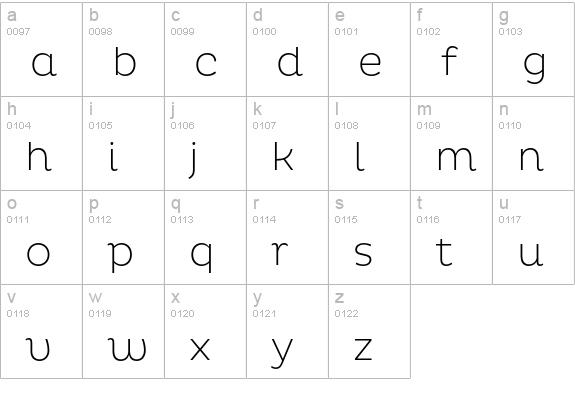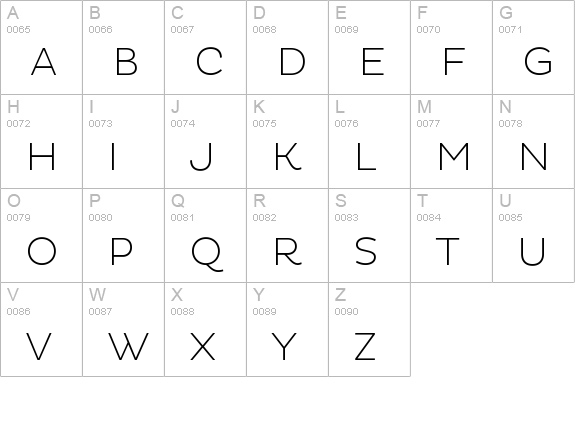
Pluto ExtraLight is an airy, ultra-refined variant in the Pluto typeface family \xE2\x80\x94 well suited to minimalist headlines and refined display use.
Pluto ExtraLight is a sleek and elegant font that exudes modern sophistication and style. With its delicate and refined letterforms, this font is perfect for creating a sense of airy lightness and minimalistic beauty in your design projects. Whether you're designing a logo, creating a brochure, or crafting a website, Pluto ExtraLight will bring a touch of subtle elegance to your work. Best of all, Pluto ExtraLight is available for free download at FontsMarket.com. Now you can elevate your designs with this exquisite font without breaking the bank. Don't miss out on the opportunity to add Pluto ExtraLight to your font collection and unlock endless possibilities for your creative endeavors. Download it today and let your designs shine with effortless grace and sophistication.